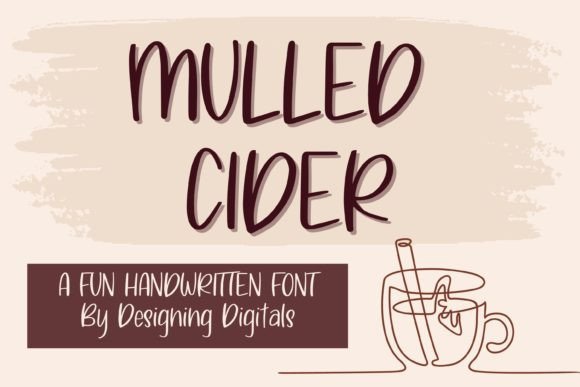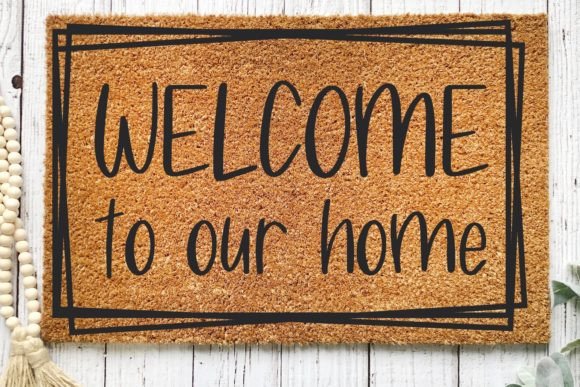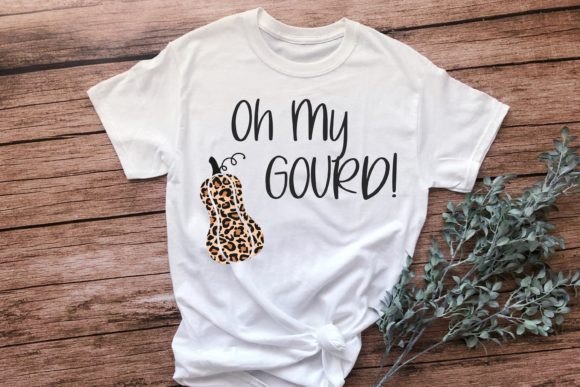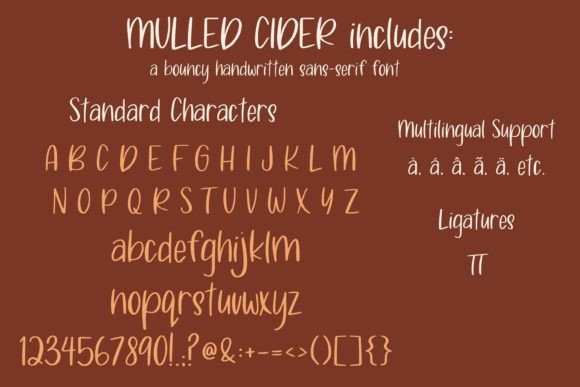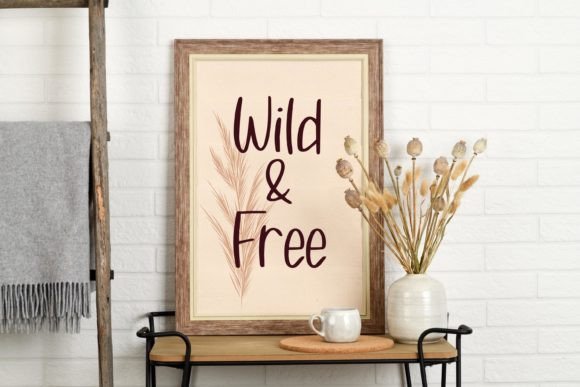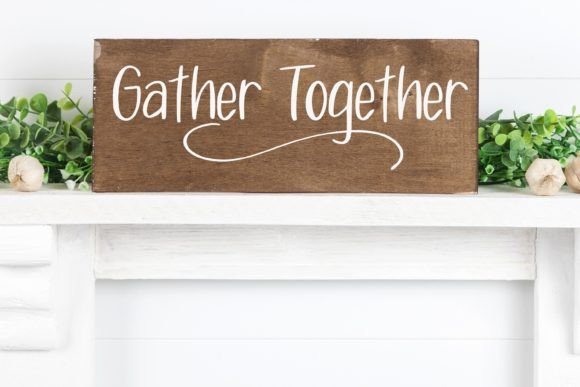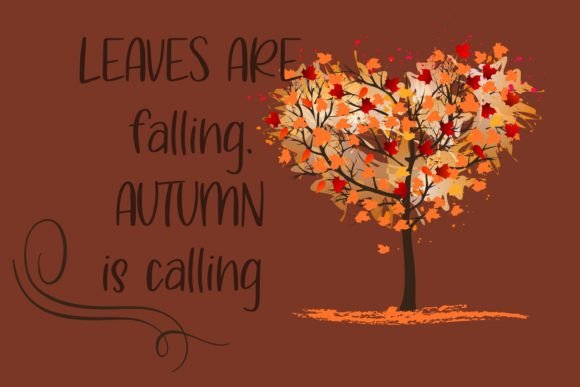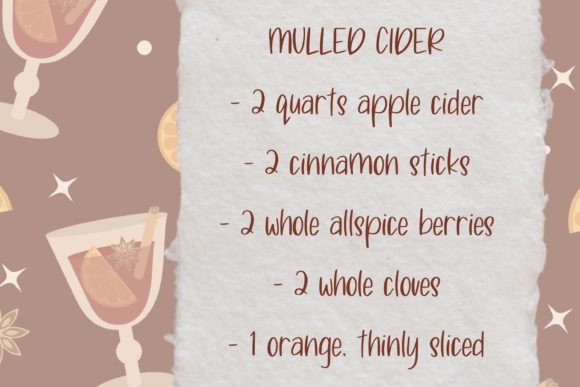
Mulled Cider Font
About Mulled Cider Font
“Mulled Cider” is a lively and bouncy handwritten sans-serif font that adds a sense of fun and playfulness to your design projects. This font is an excellent choice for various creative applications, making it perfect for fun logos, greeting cards, t-shirt designs, stickers, social media graphics, and a wide range of craft and DIY projects.
“Mulled Cider” font features a playful and energetic aesthetic that infuses your designs with a touch of joy and creativity. Its bouncy letterforms radiate positivity and charm, making it a versatile option for a variety of creative endeavors.
For fun logos, “Mulled Cider” brings a unique and memorable style that captures the essence of playfulness. It adds character to your brand identity, making it instantly recognizable and engaging.
In the world of greeting cards and social media graphics, “Mulled Cider” adds a sense of excitement and enthusiasm. It ensures that your messages and visuals are conveyed with a cheerful and lively vibe.
For t-shirt designs, stickers, and craft projects, “Mulled Cider” enhances your creations with a fun and expressive touch. It allows you to create designs that stand out and resonate with your audience.
In summary, “Mulled Cider” is more than just a font; it’s a creative tool that brings a sense of bounciness and playfulness to your work. Its versatility and lively charm make it suitable for a wide range of projects, allowing you to create designs that are not only visually appealing but also emotionally engaging. Embrace “Mulled Cider” and infuse your creative projects with a burst of fun and creativity that will captivate your audience.